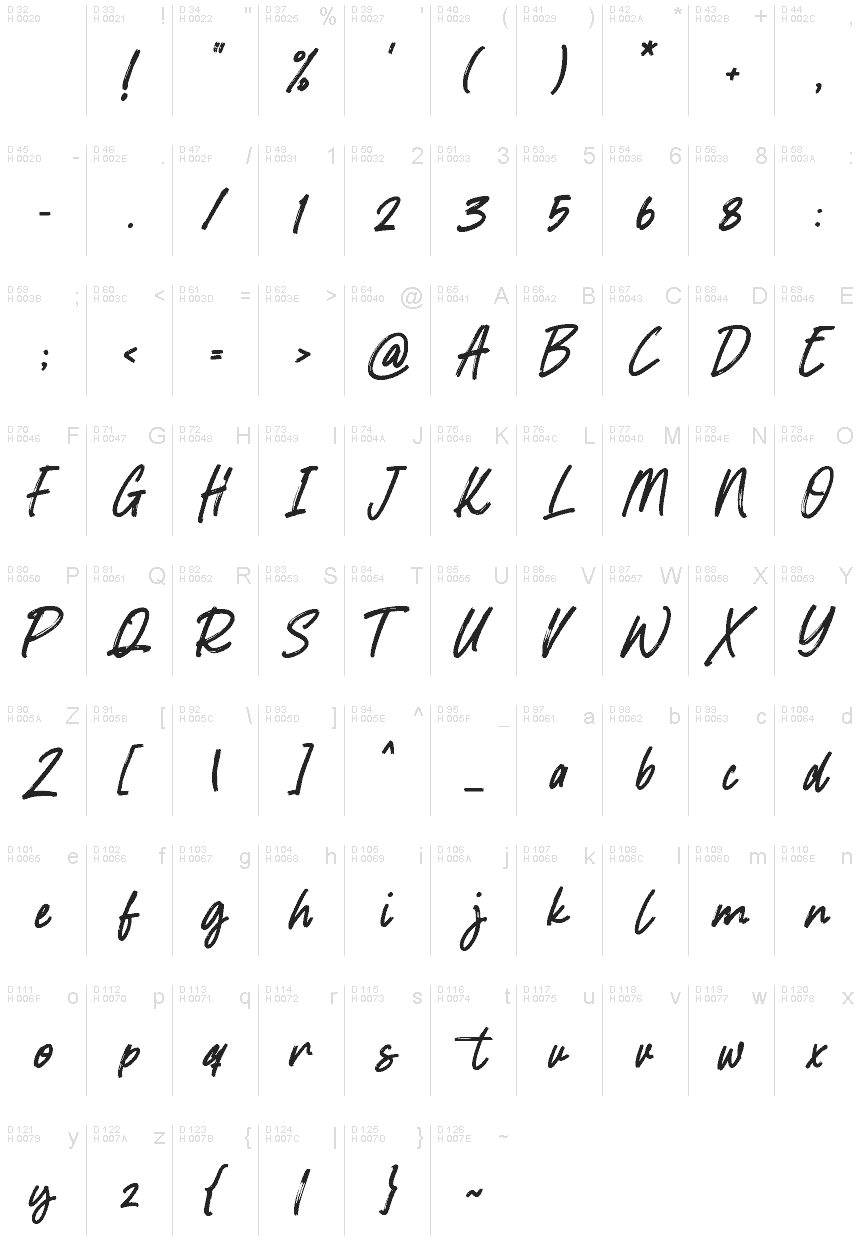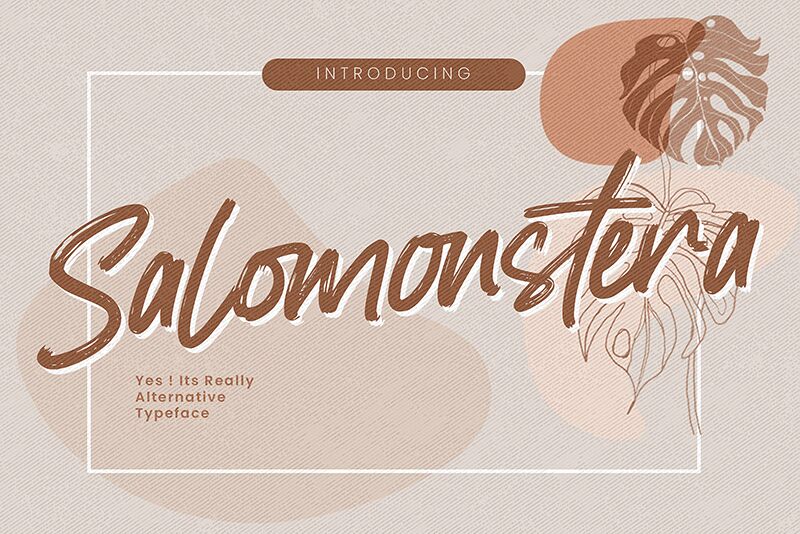
Salomonstera
Salomonstera brush font was created and shared by Gassstype. This dashing font is a modern brush style font with uppercase and lowercase characters, punctuations, and numbers; as well as a ligature set. This font is suitable for any project that needs a modern style like branding projects, invitation card designs, poster designs, book covers, apparel items, postcards, and many more.